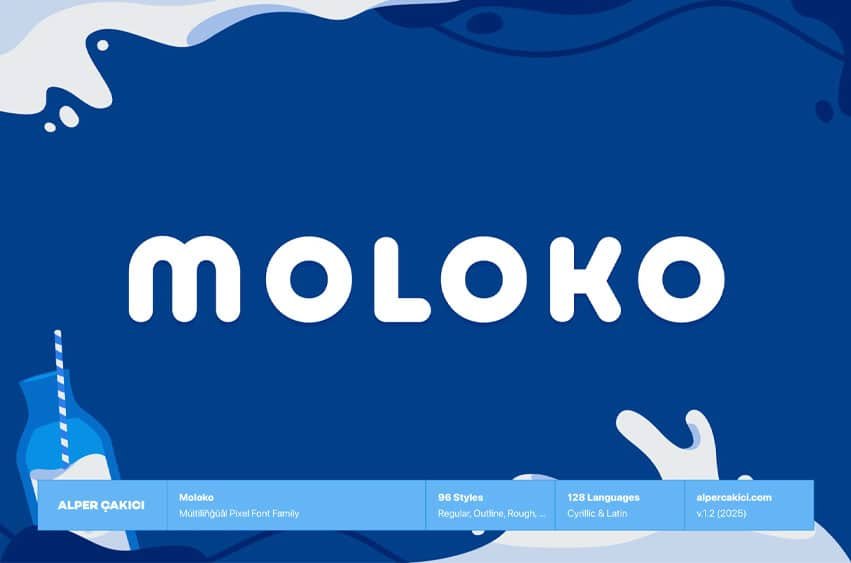
Moloko Font is a rounded geometric typeface family built for designers who want versatility, personality, and global reach. With 96 carefully crafted instances—including Regular, Italic, Bold, Extra weights, Outline, Eroded, and Rough variations—Moloko offers a complete toolkit for expressive design.
Supporting 128 languages (Cyrillic & Latin), Moloko is highly functional for international projects. Its extensive weight range makes it suitable for impactful headlines as well as balanced body text. A modern workhorse with creative edge, Moloko brings polished consistency across every style.